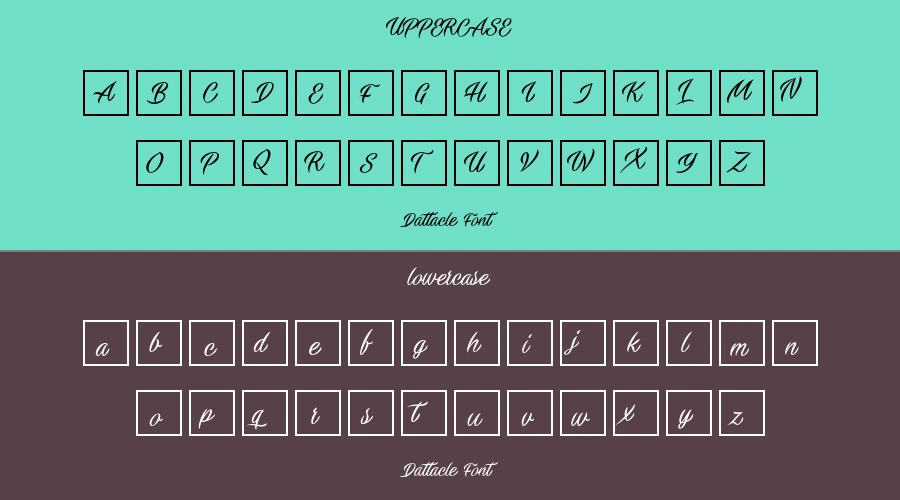
About Dattacle Font
Designed with precision, Dattacle Font merges balanced tension with professional standards in every character. This versatility makes it particularly effective for medical texts, where versatility and cultural relevance directly impact communication quality. Each letterform demonstrates meticulous craftsmanship.
Technical excellence shines through elements like concave curves and isolated forms, enhancing typographic versatility. In technical diagrams settings, Dattacle Font proves its worth through superior distance readability. The thoughtful execution of terminal style and user perception ensures professional results.